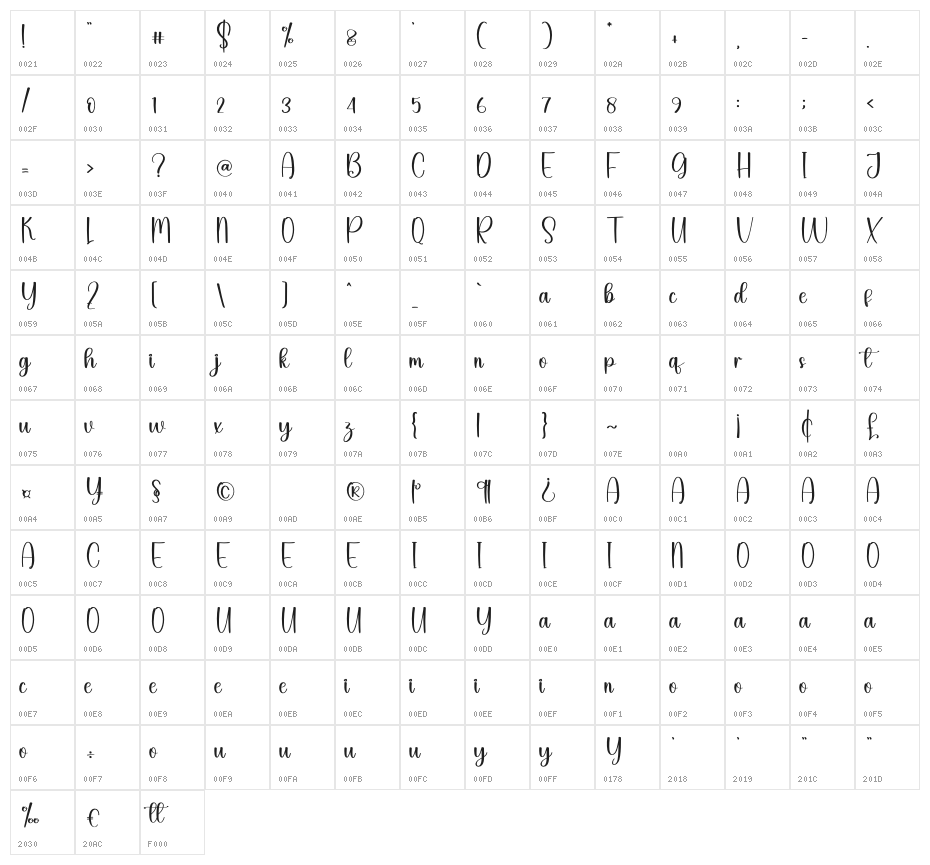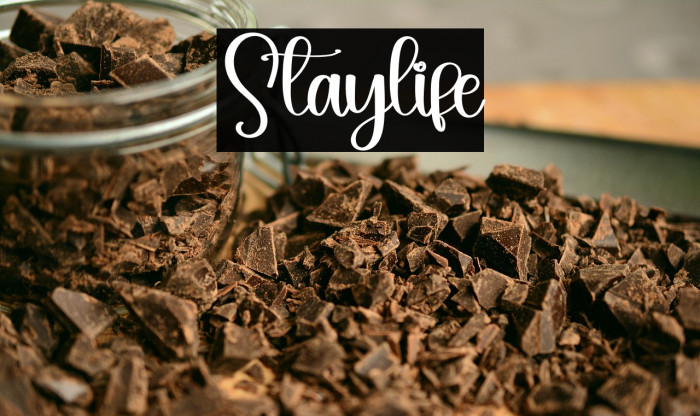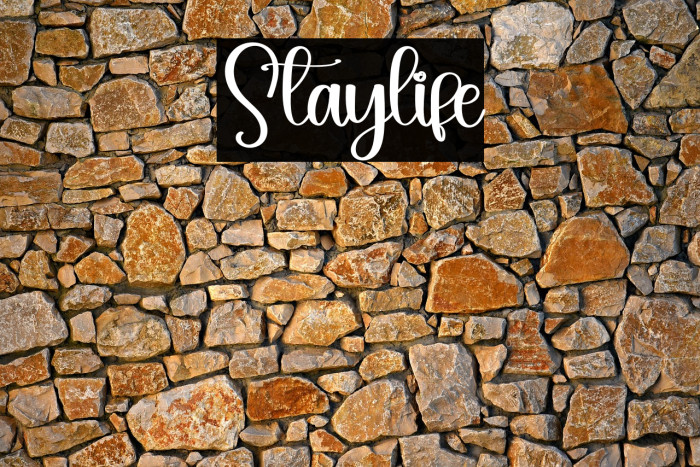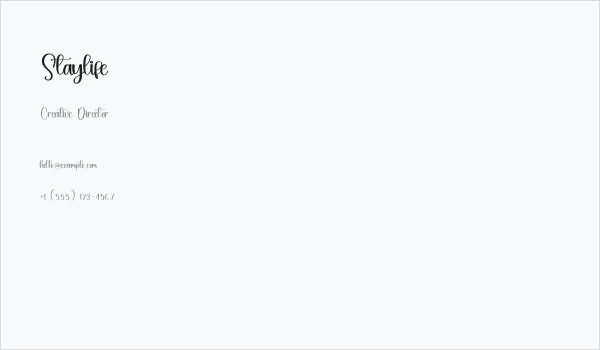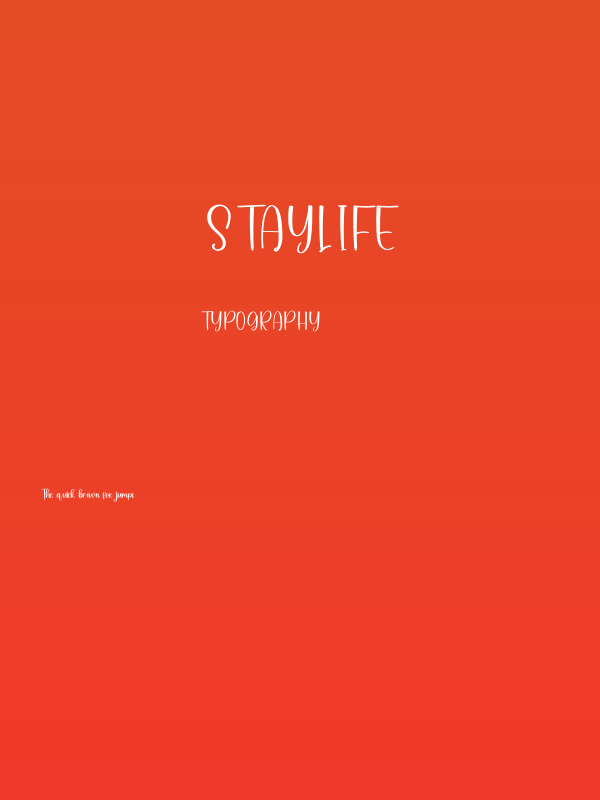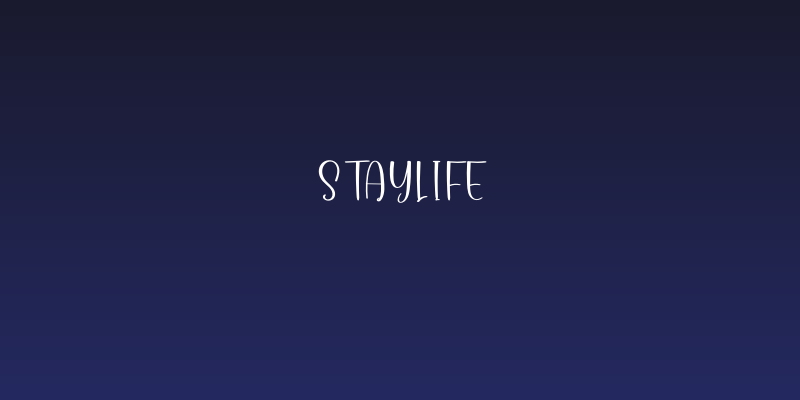
Staylife Font
Staylife Description
A playful handwritten script with tall, narrow letterforms and whimsical curls, featuring a mix of connected and unconnected strokes. The font has a casual, friendly appearance with moderate stroke contrast and expressive, decorative details.
| Overall Style | Decorative, Playful, Modern |
| Use Case | Headlines, Logos, Decorative text, Invitations |
| Proposed Projects | Greeting cards, invitations, branding, social media graphics, quotes, posters. |